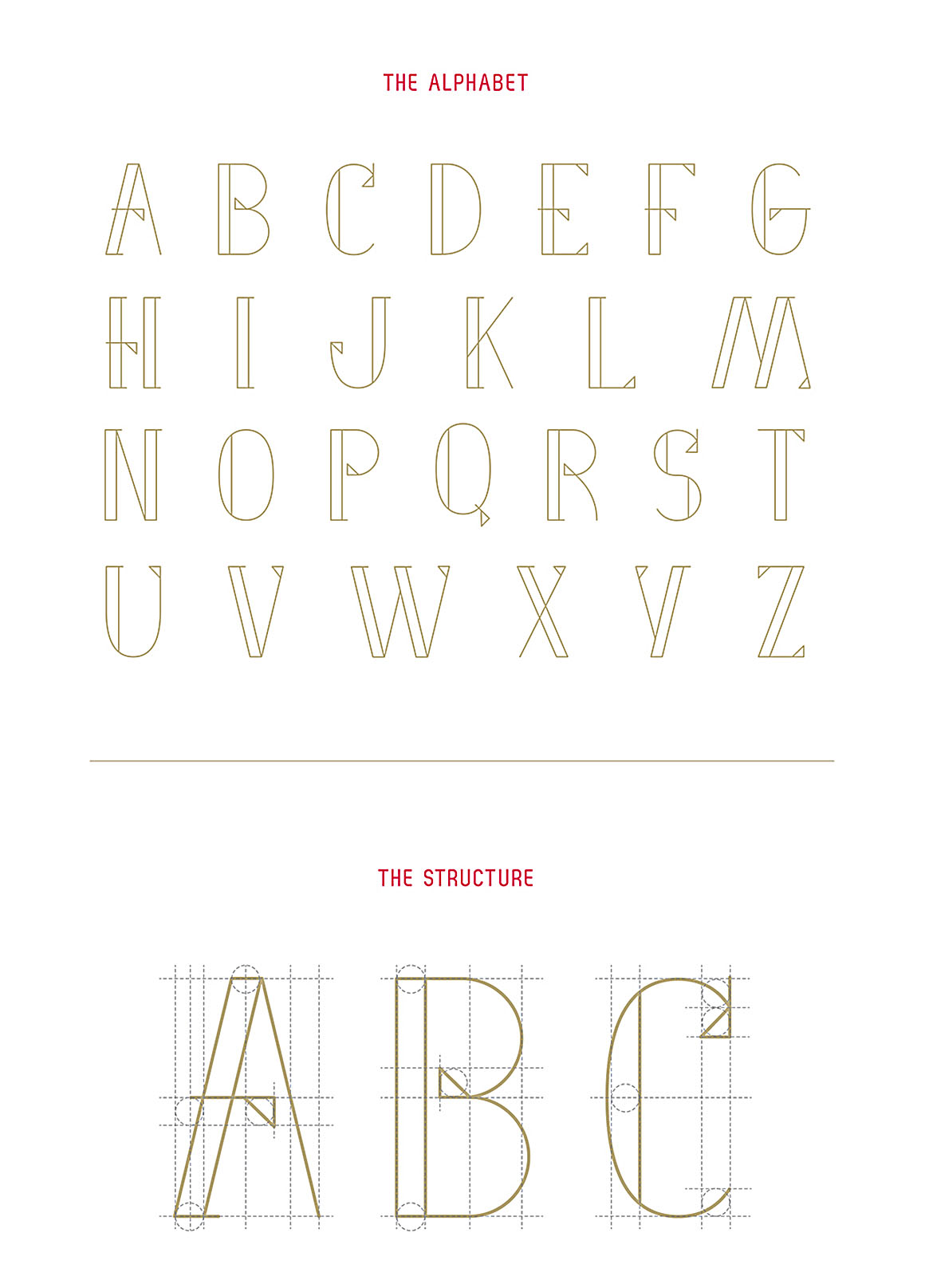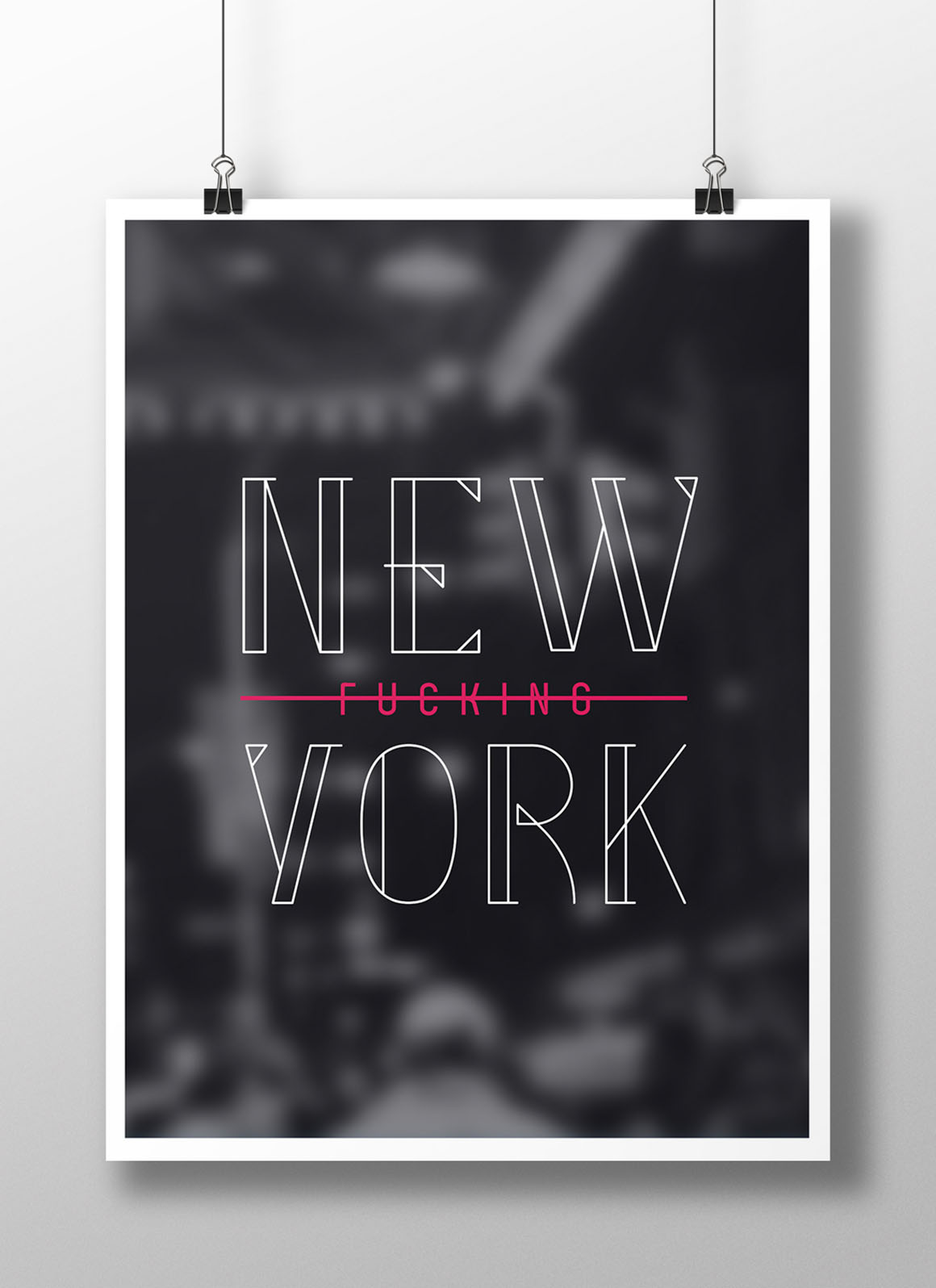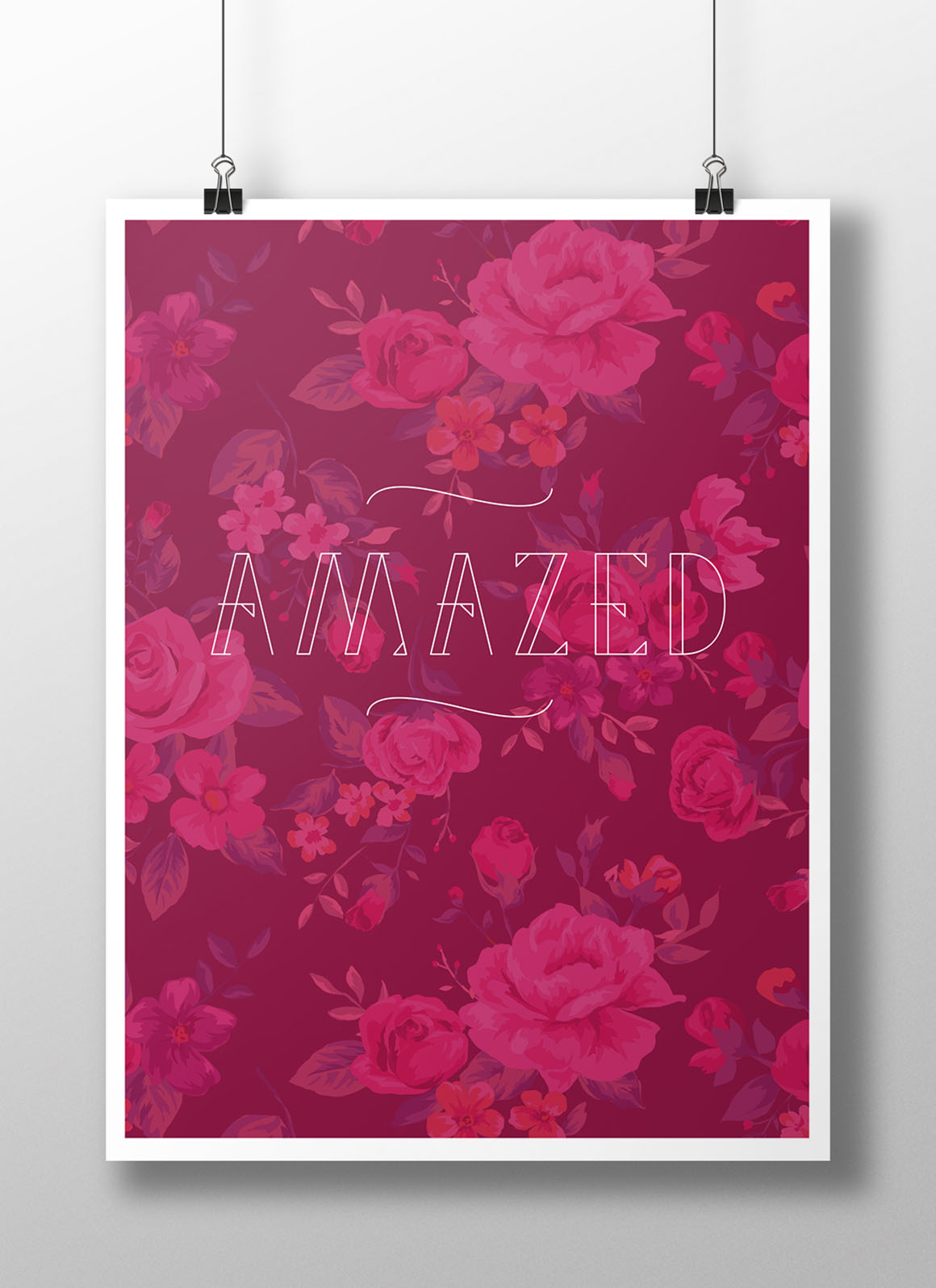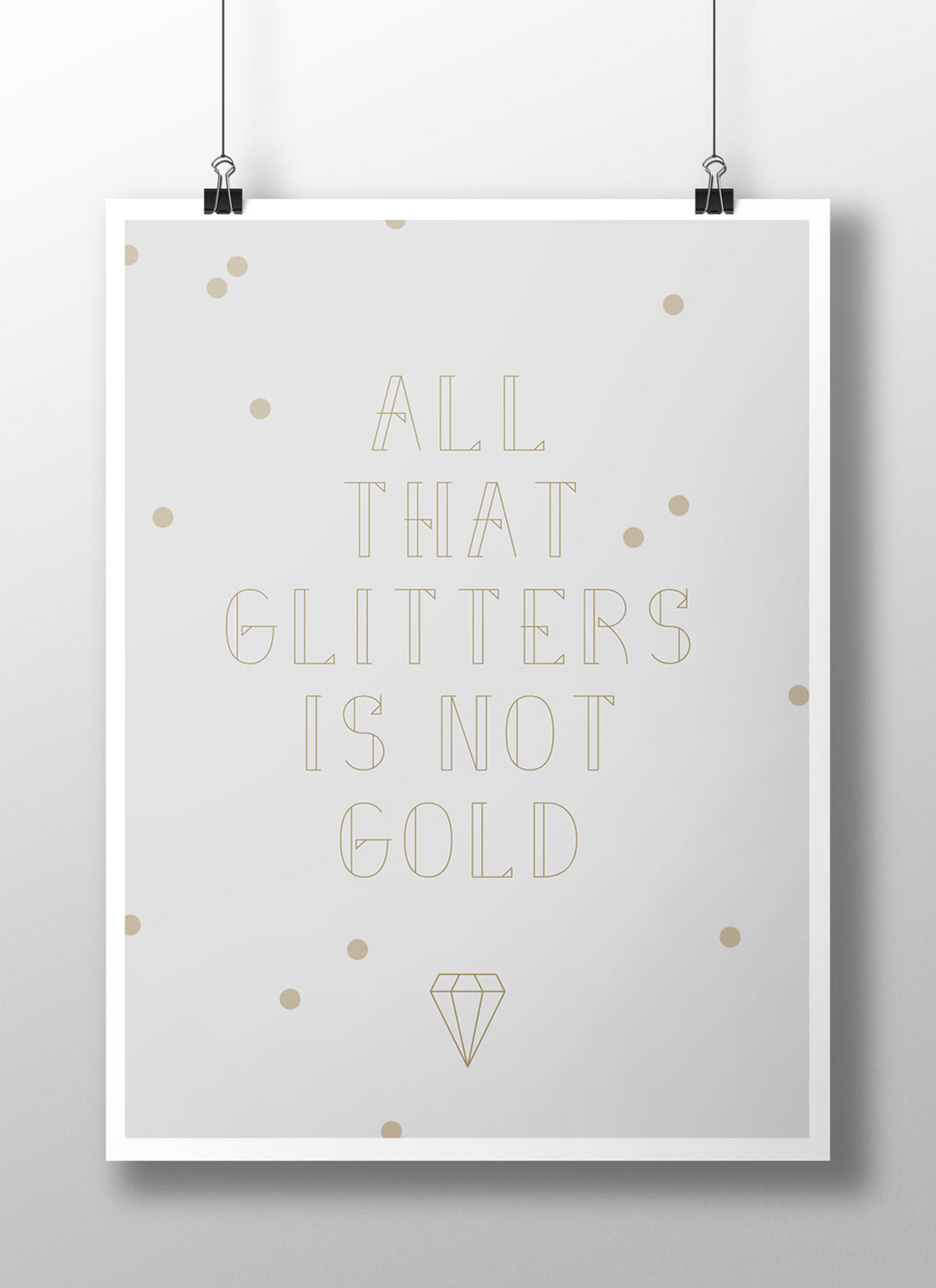
FancyMe – Free Modern Font
This cool custom fonts is from Marie-Michelle Dupuis. With unique modern and clean style and great for your new fancy projects. Download and enjoy 😉